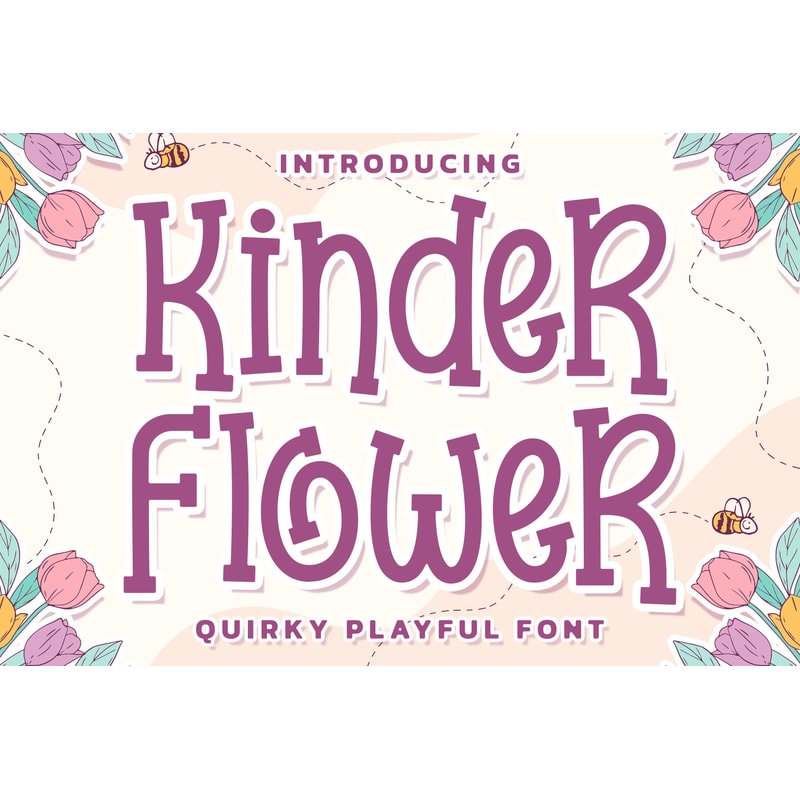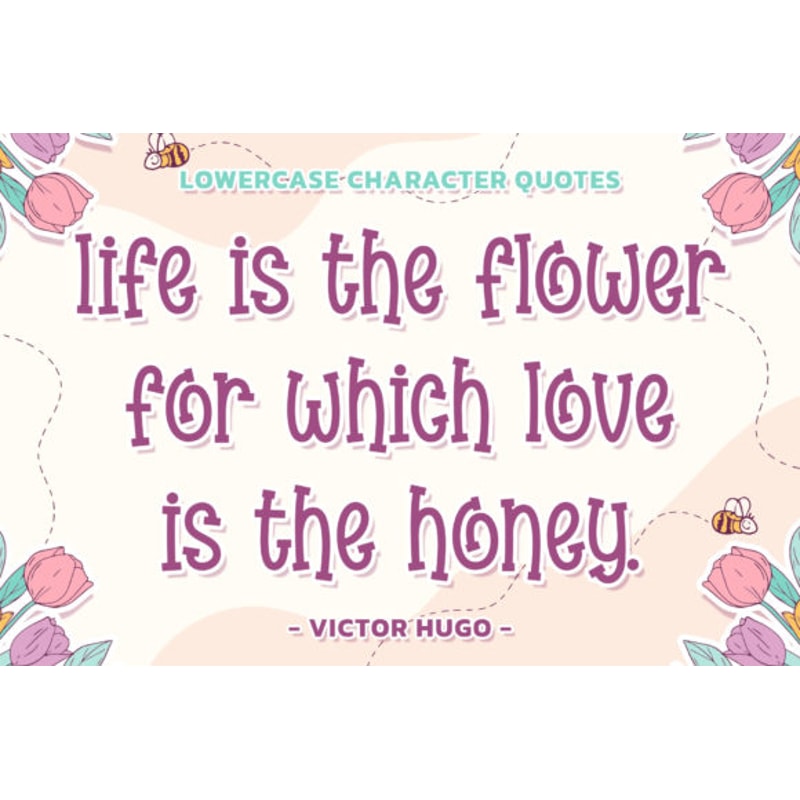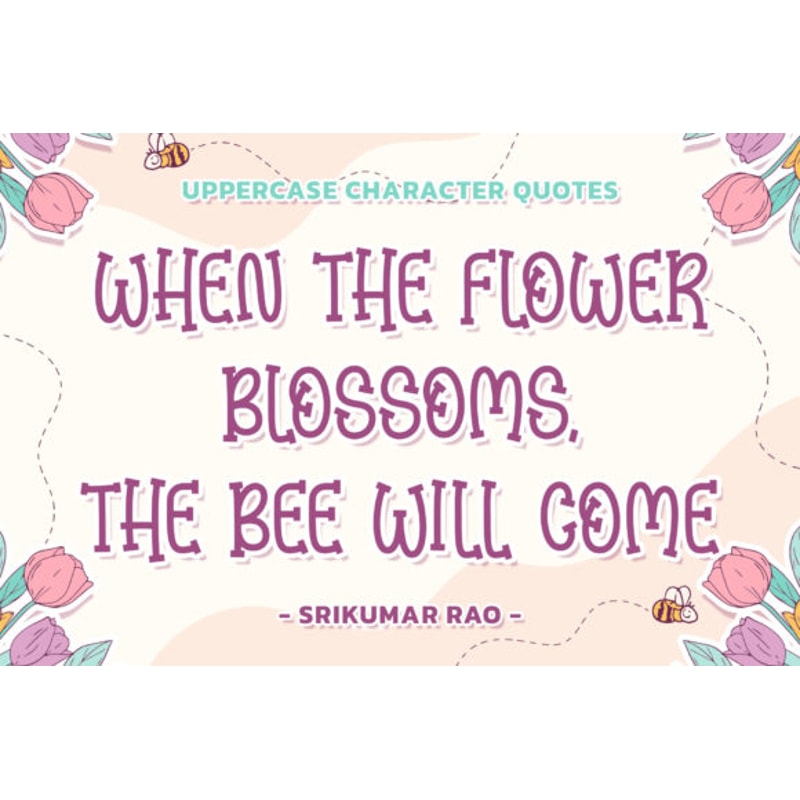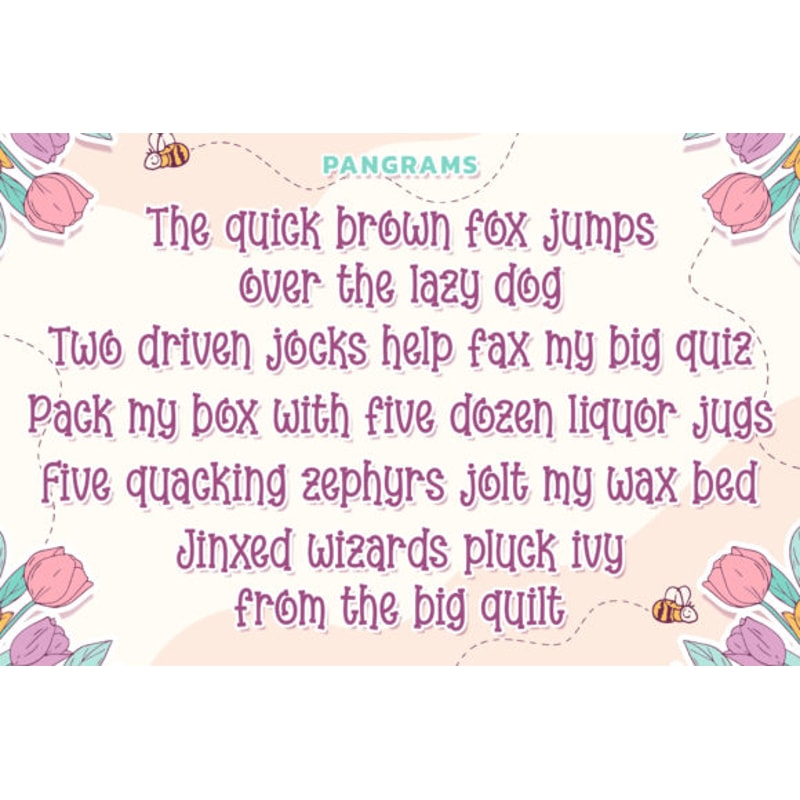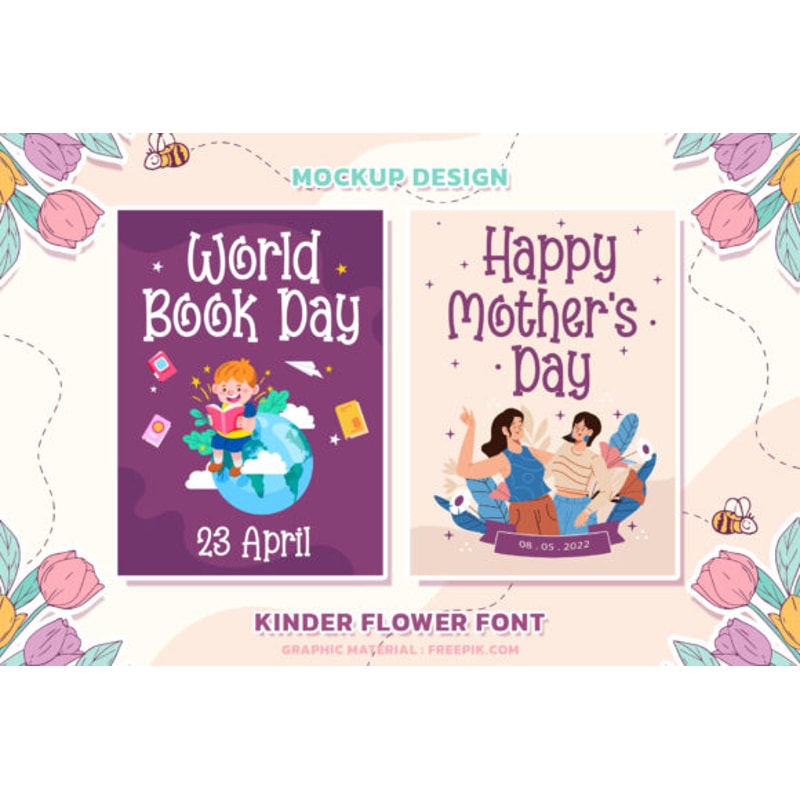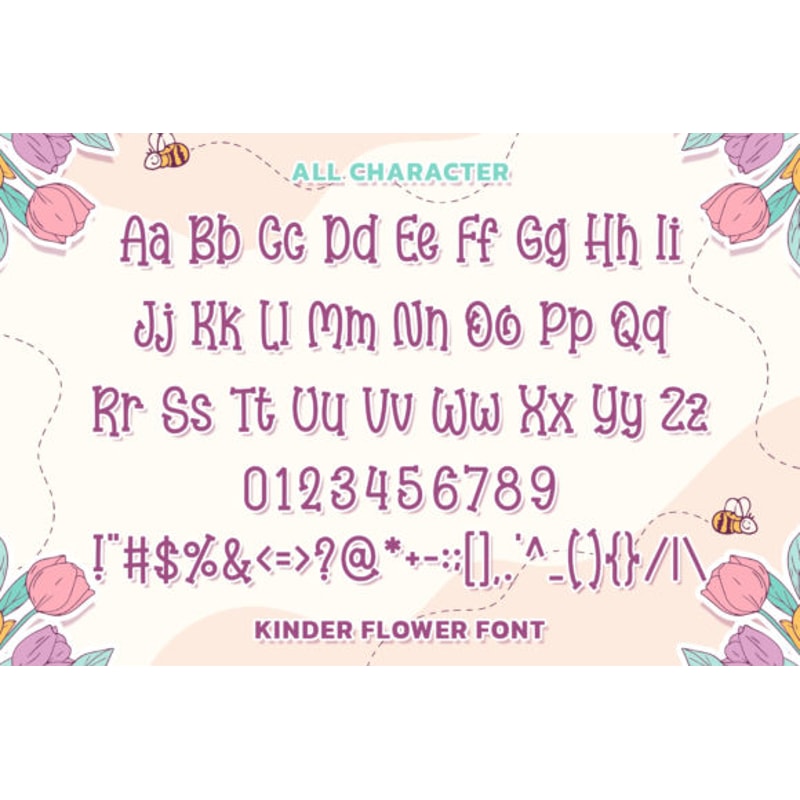
Kinder Flower Font
Kinder Flower is a playful and stylish font with a youthful spirit. Is suitable for both professional-looking projects such as branding designs, labels, websites, and business cards as well as casual designs like packaging, posters, flyers, quotes, social media posts, invitations, special occasions cards, etc
Kinder Flower Font
Kinder Flower is a playful and stylish font with a youthful spirit. Is suitable for both professional-looking projects such as branding designs, labels, websites, and business cards as well as casual designs like packaging, posters, flyers, quotes, social media posts, invitations, special occasions cards, etc